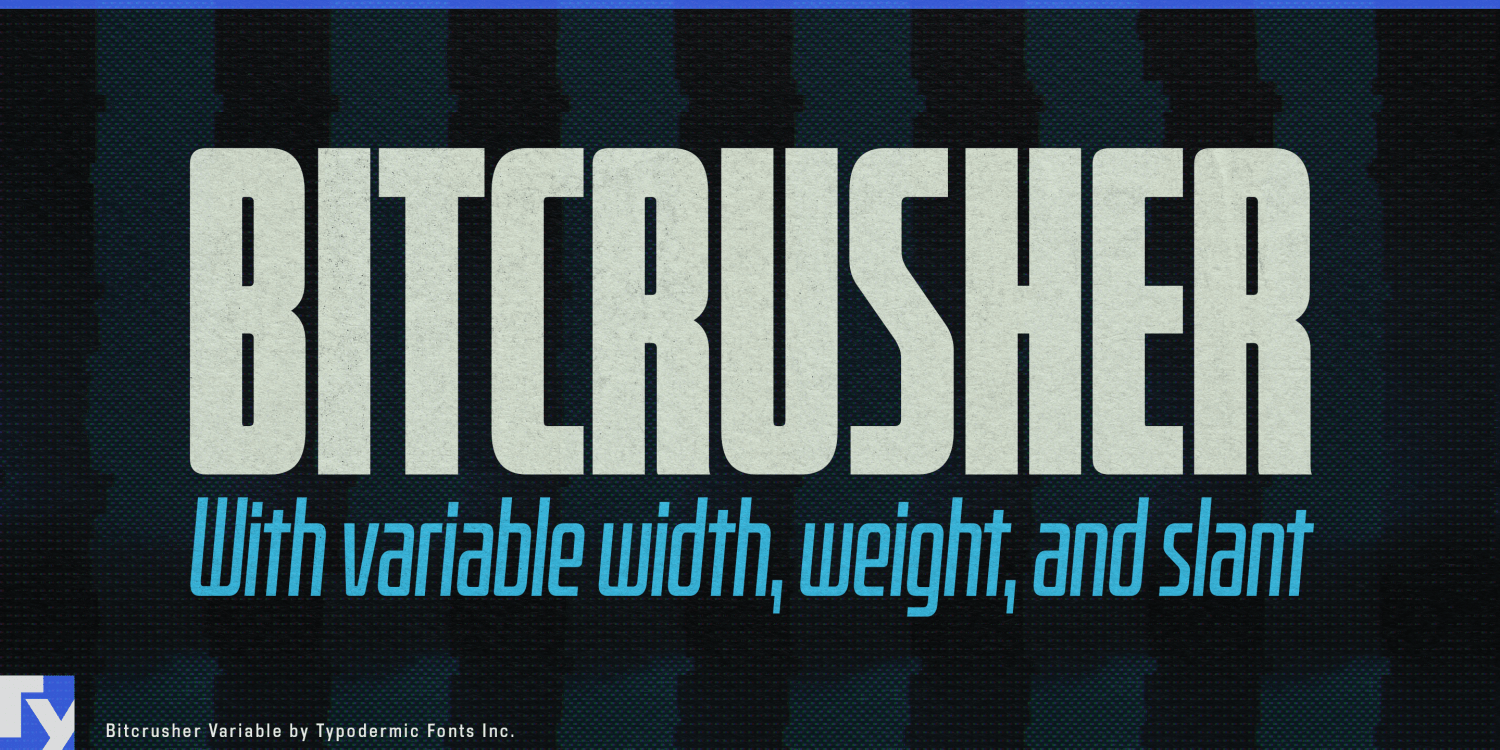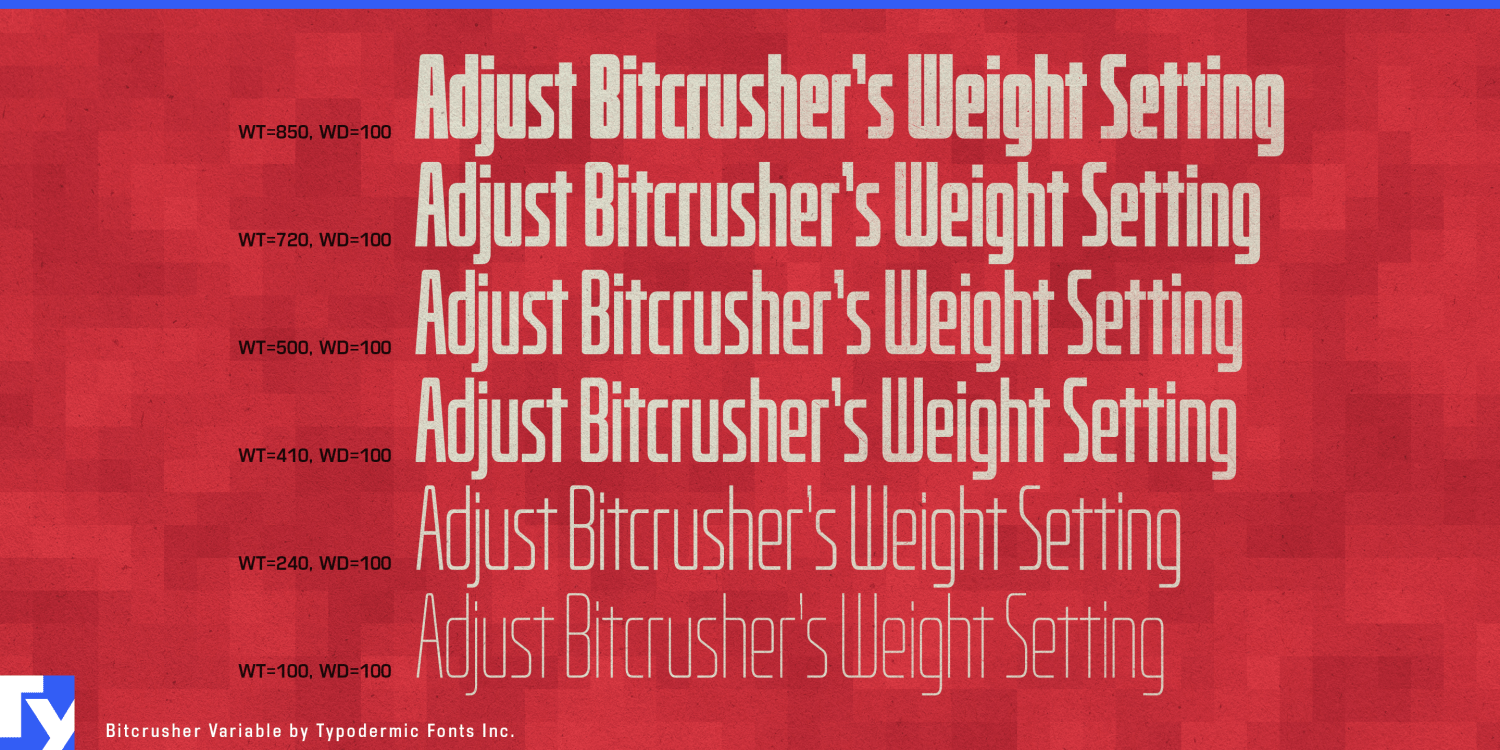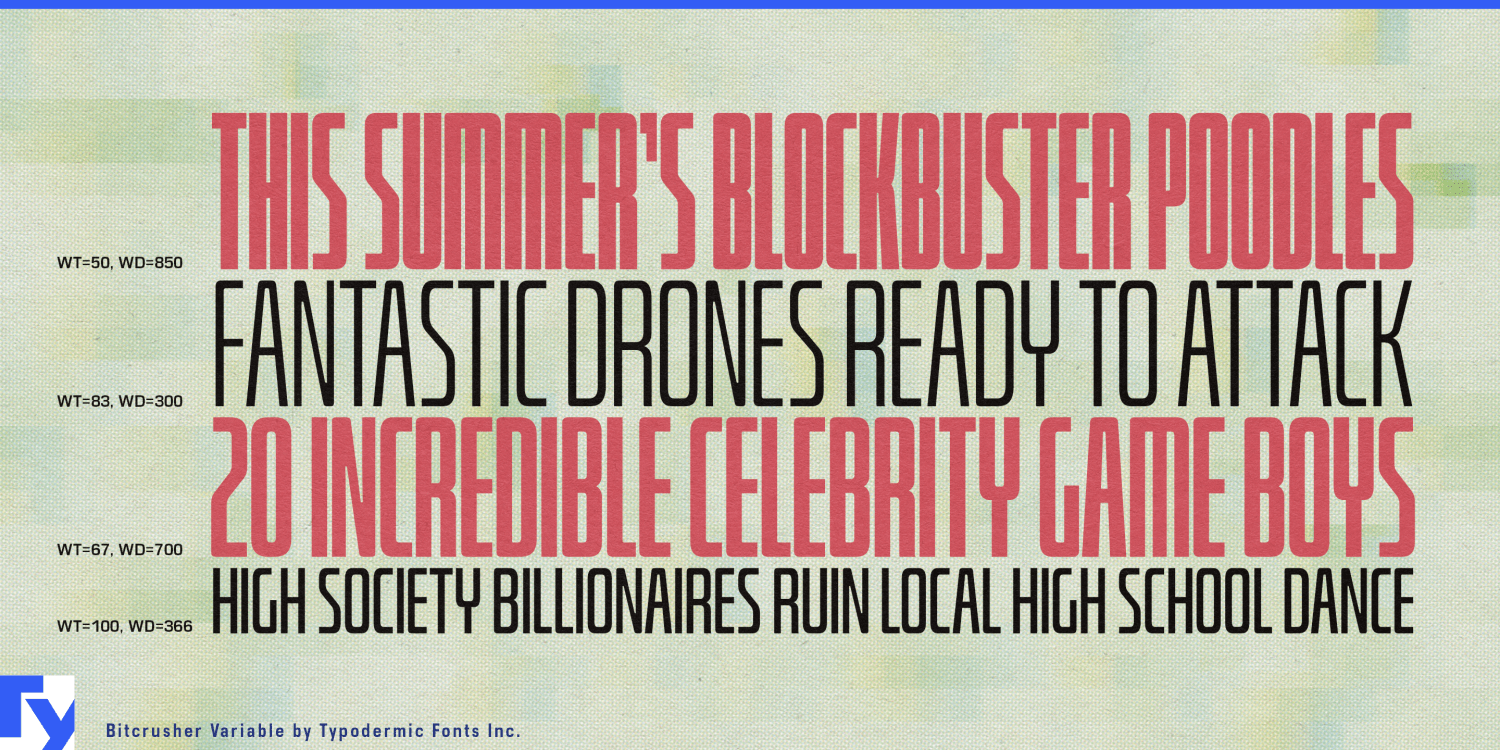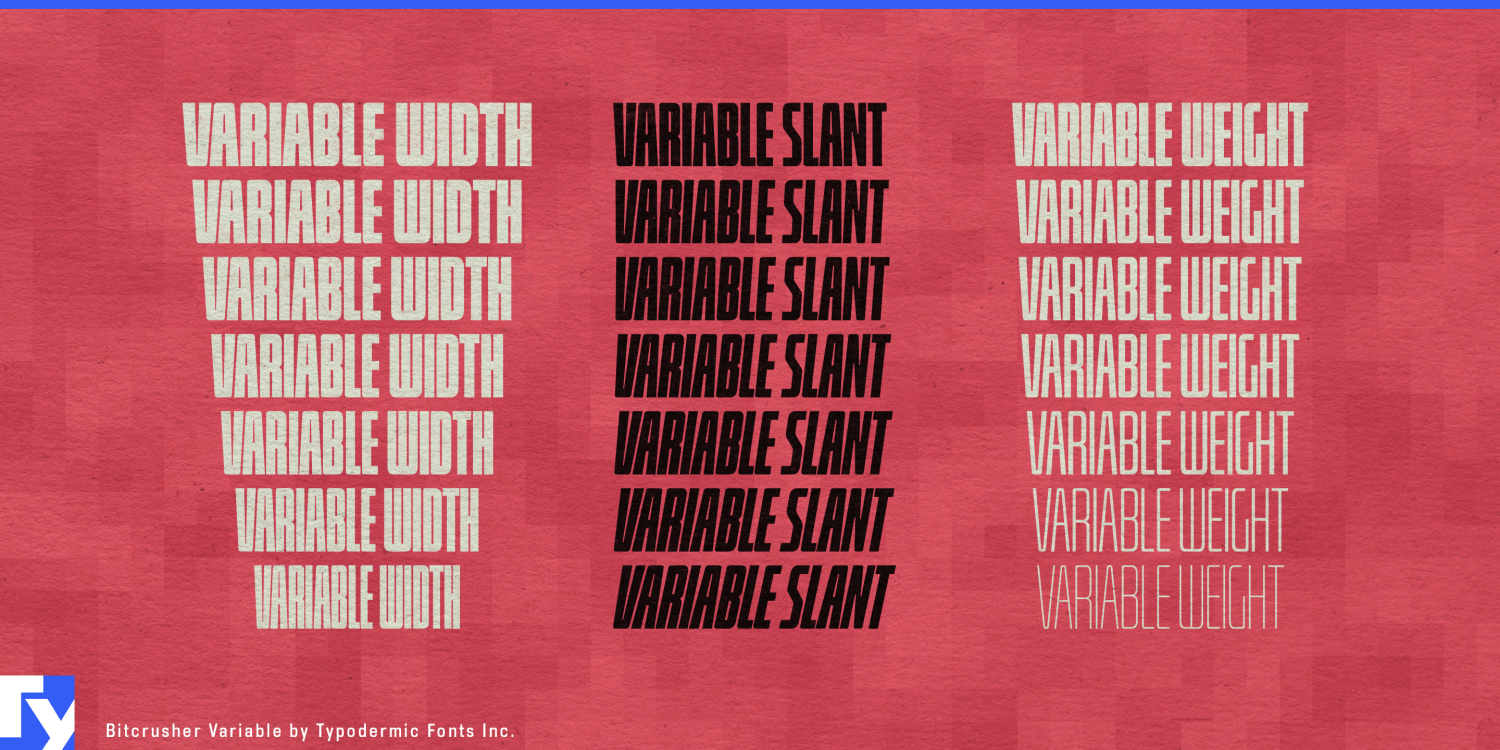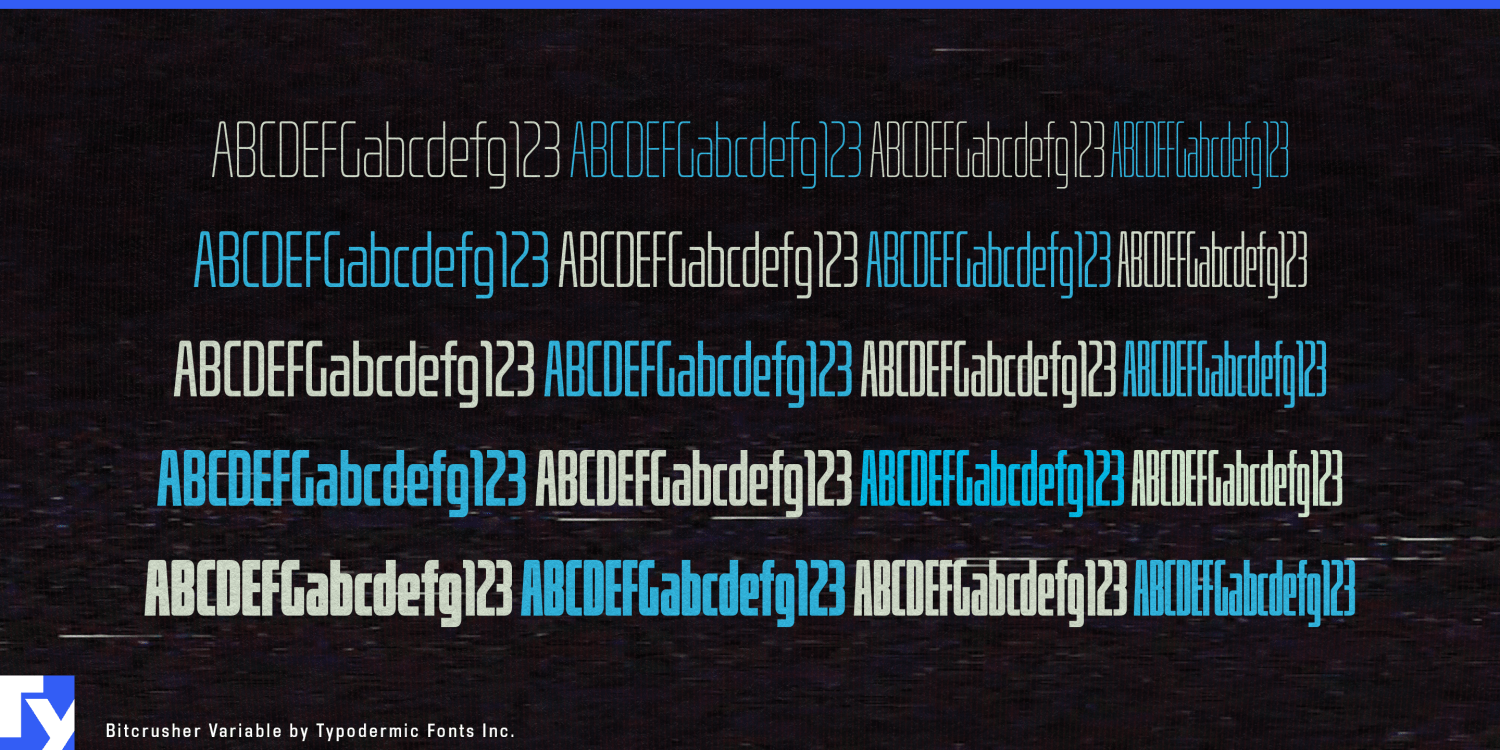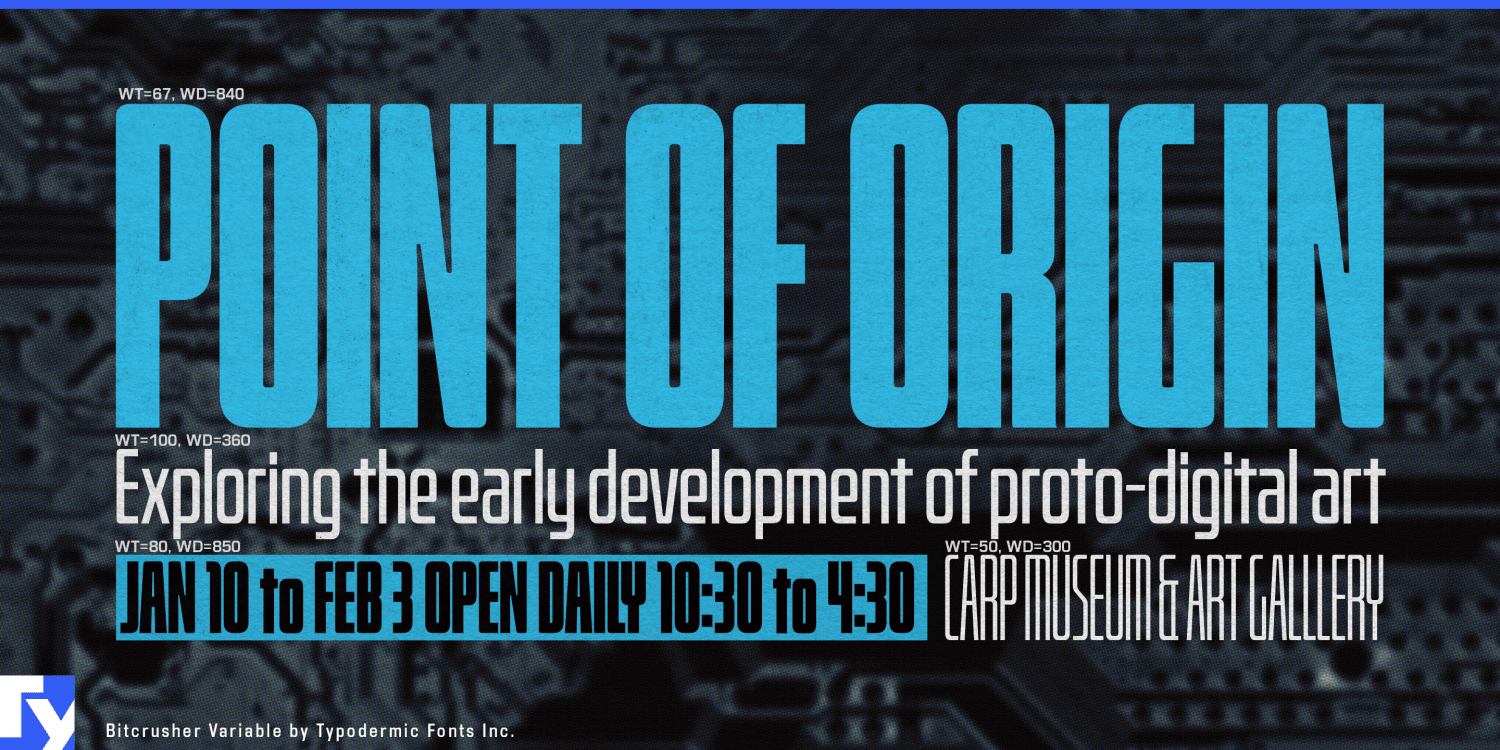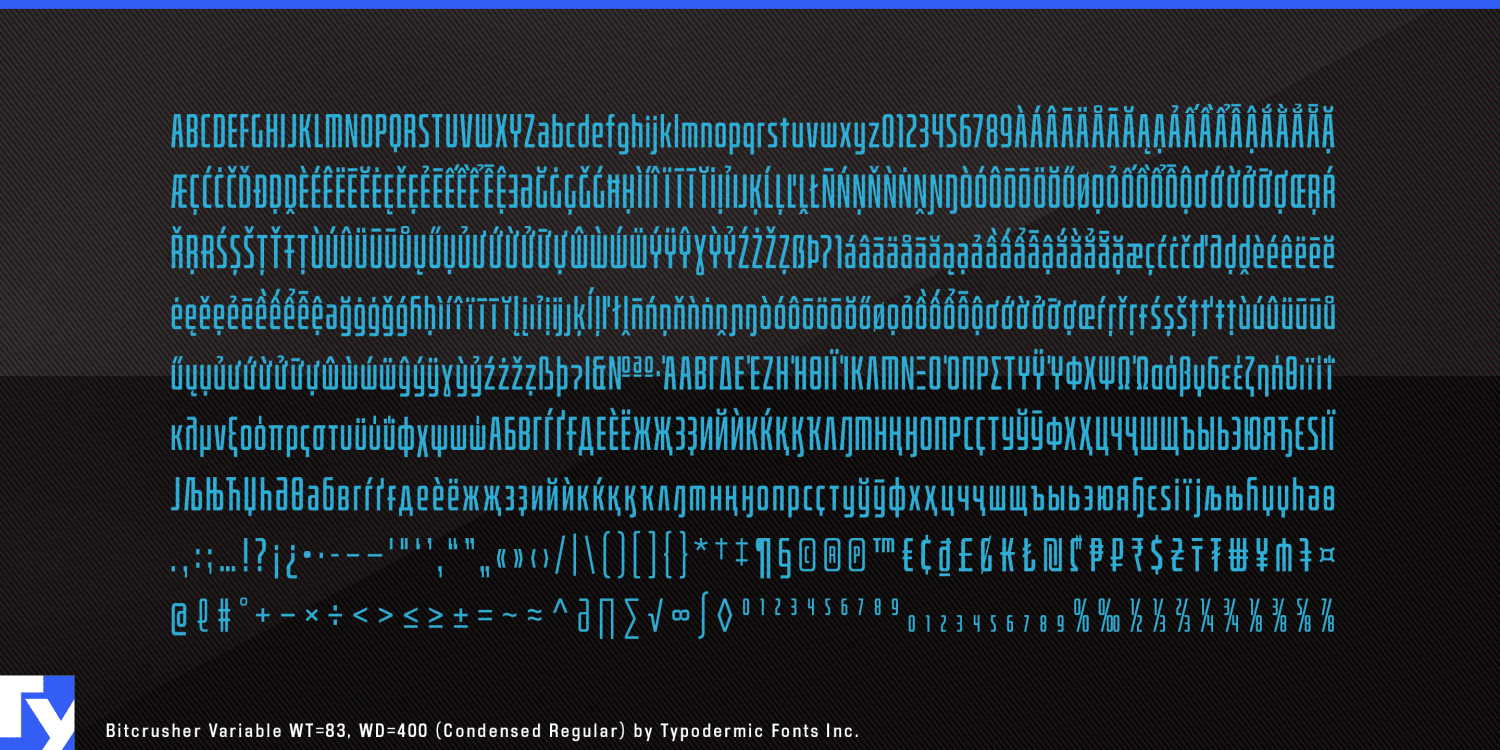
Bitcrusher Variable
Bitcrusher Variable gives you the same high-performance compression as the static family—only now, you’re in complete control of the throttle. With adjustable weight and width axes, you can fine-tune your typography in real time, from comfortably condensed to gloriously crushed, and from feather-light to unapologetically bold.
It’s like owning a sports car with an infinitely adjustable gearbox. You might spend most of your time cruising at reasonable settings, but when the project calls for it, you can open it up and push your type to extremes that turn heads. Even the most radical compression stays legible thanks to Bitcrusher’s engineered consistency in stems, spacing, and gaps.
The fun is in the freedom. Need to shave just a few pixels off a headline? Slide the width until it fits perfectly. Want a heavier presence without crowding the page? Dial up the weight while keeping the width in check. Bitcrusher Variable invites you to experiment, break rules, and find sweet spots static fonts can’t reach. And because it’s built for global design, Bitcrusher Variable supports most Latin-based European languages, plus Greek, Cyrillic, and Vietnamese. So no matter where your message needs to go, you can set it with confidence—and a little swagger.
Bitcrusher Variable is a precision tool for designers who like to know exactly how far they can push it… and enjoy the ride.